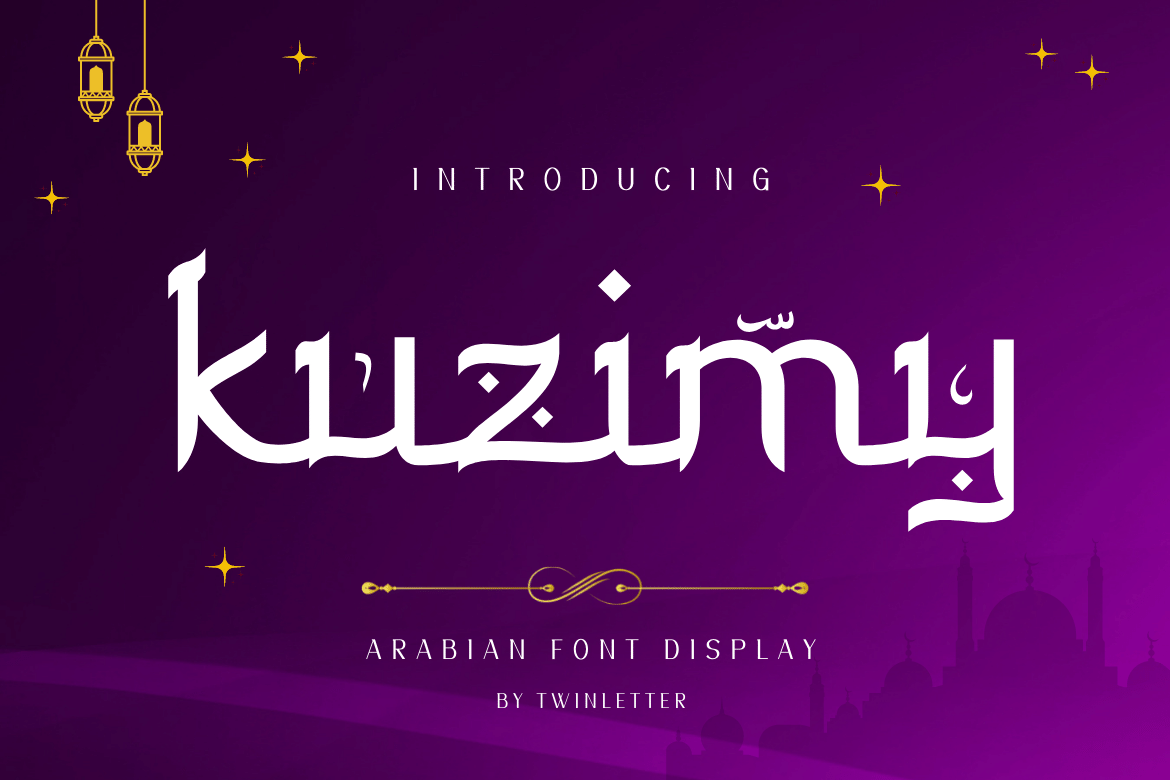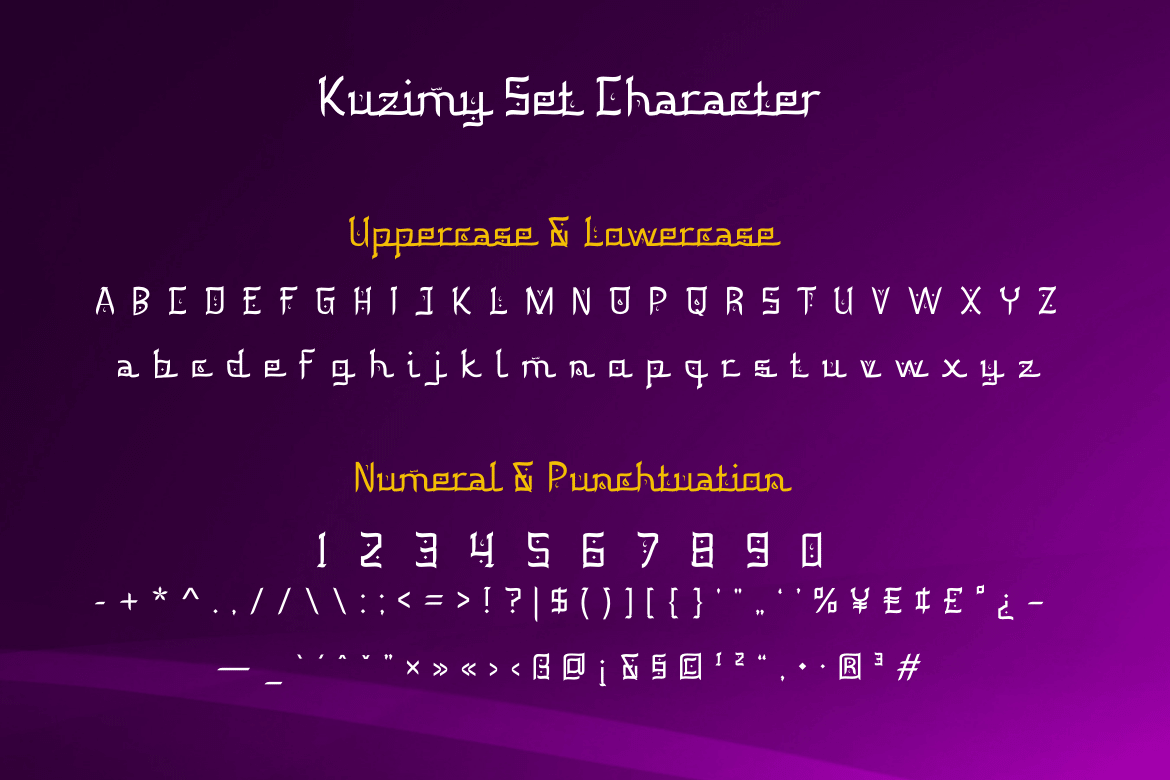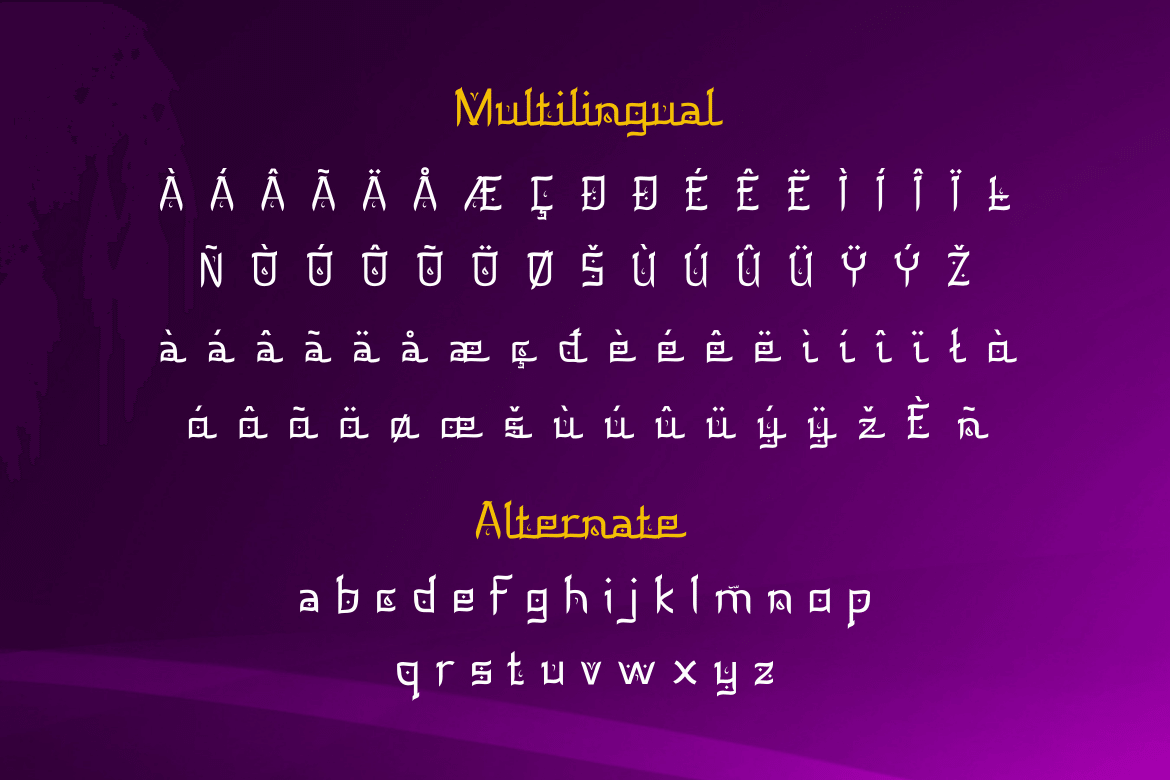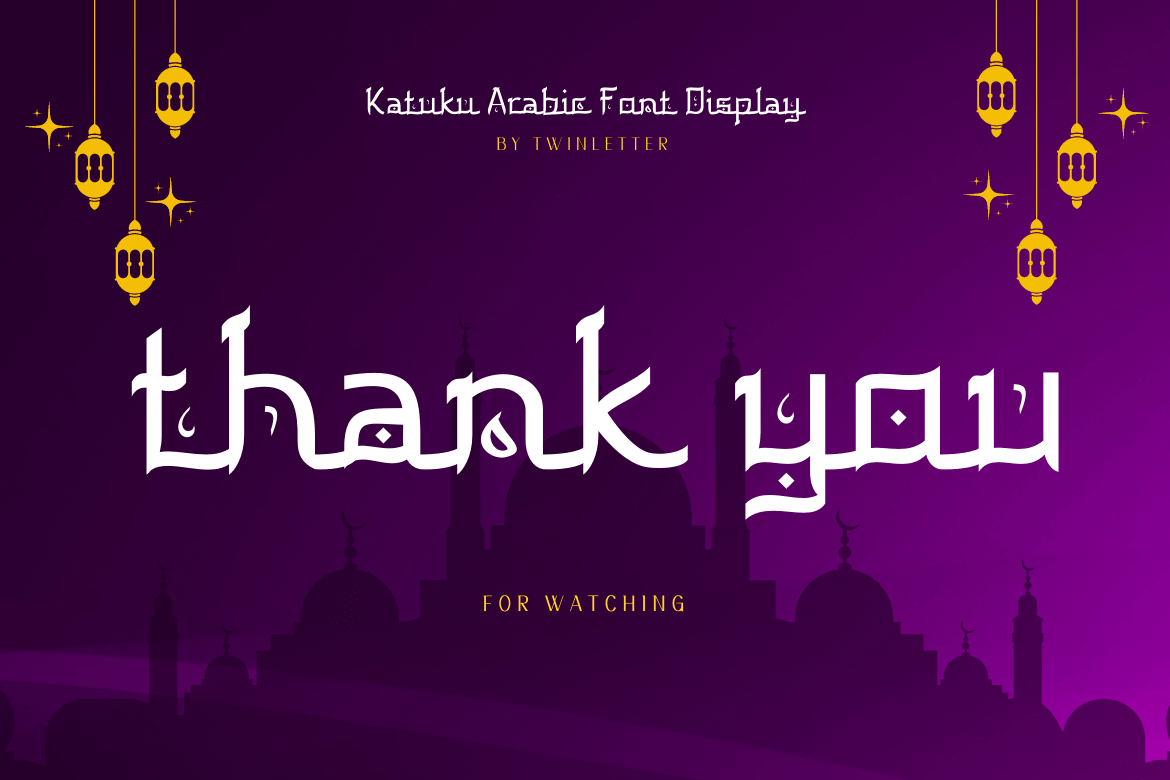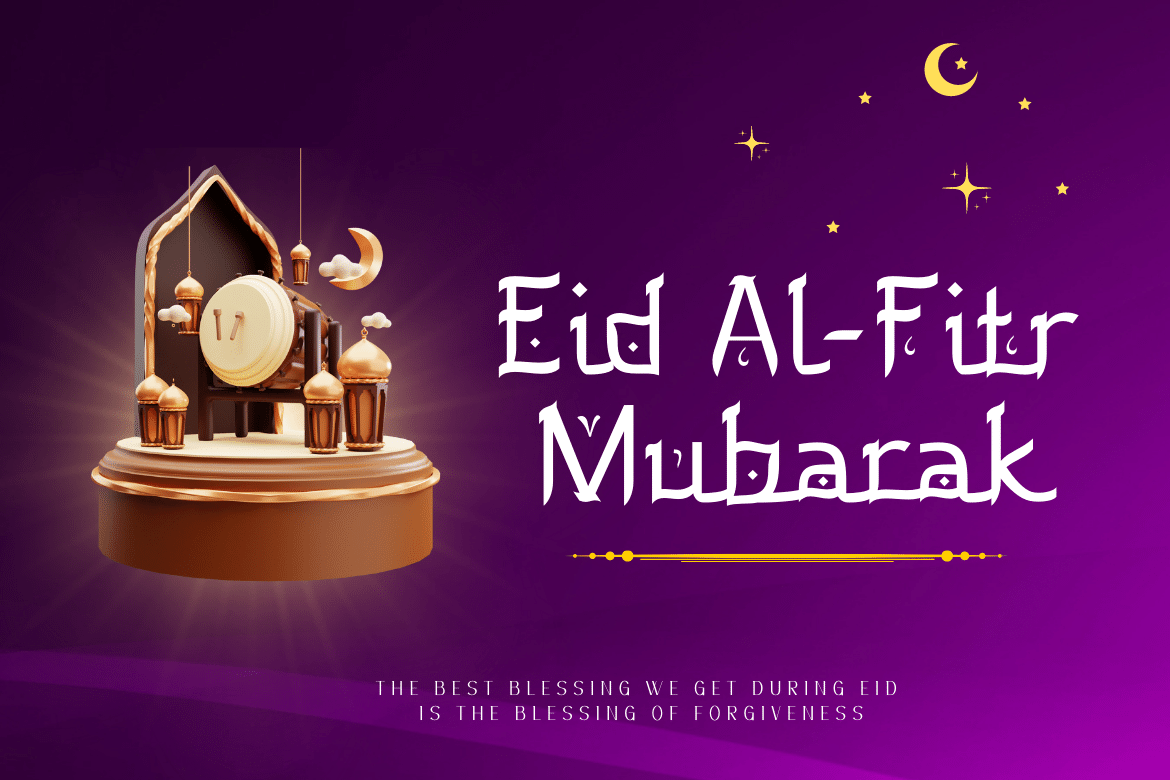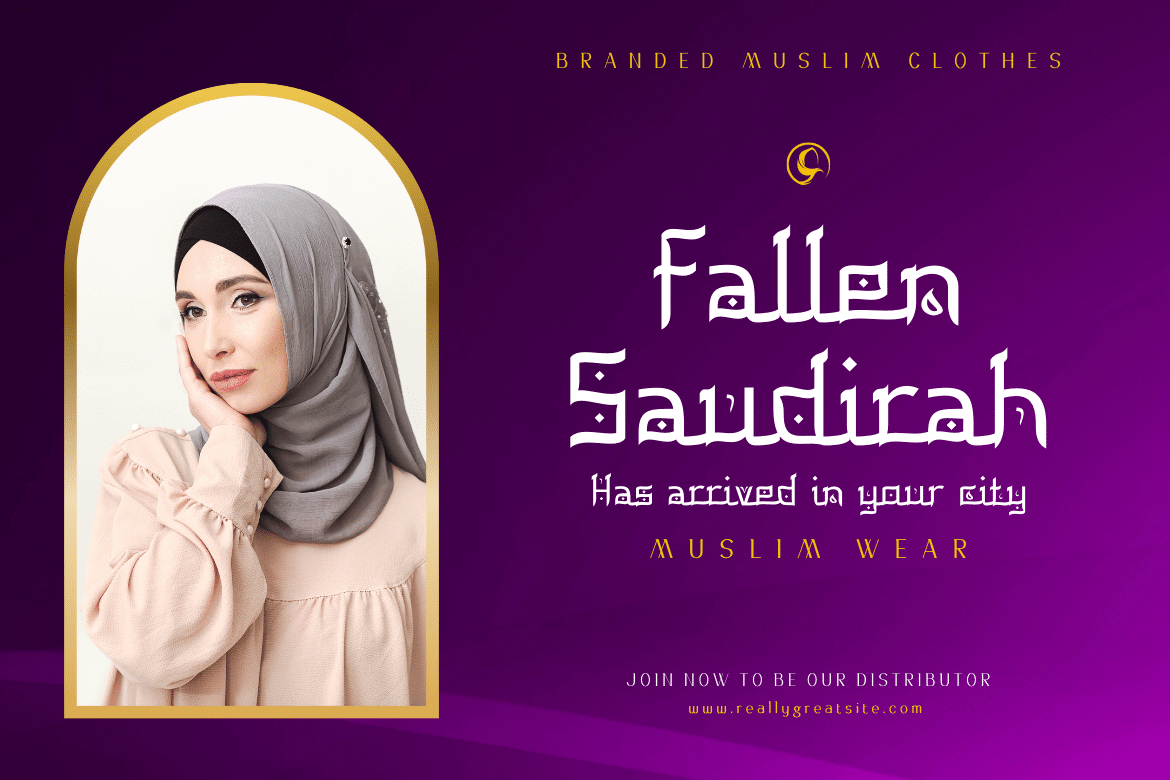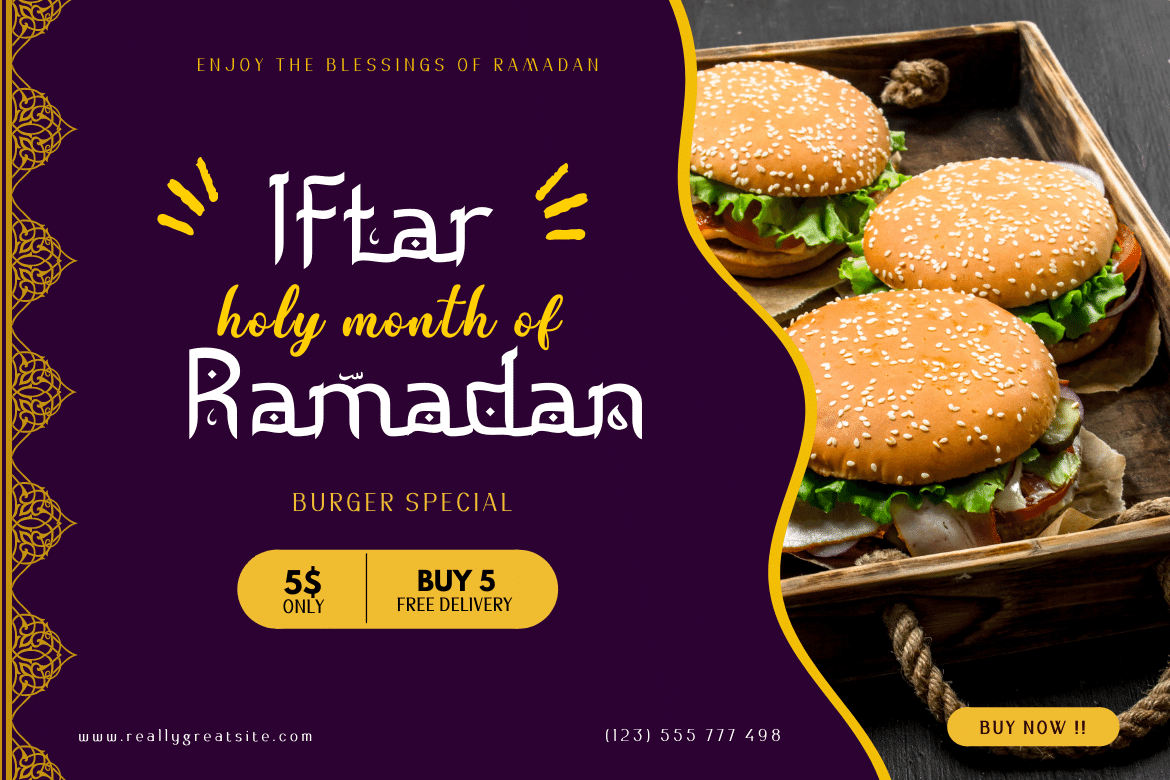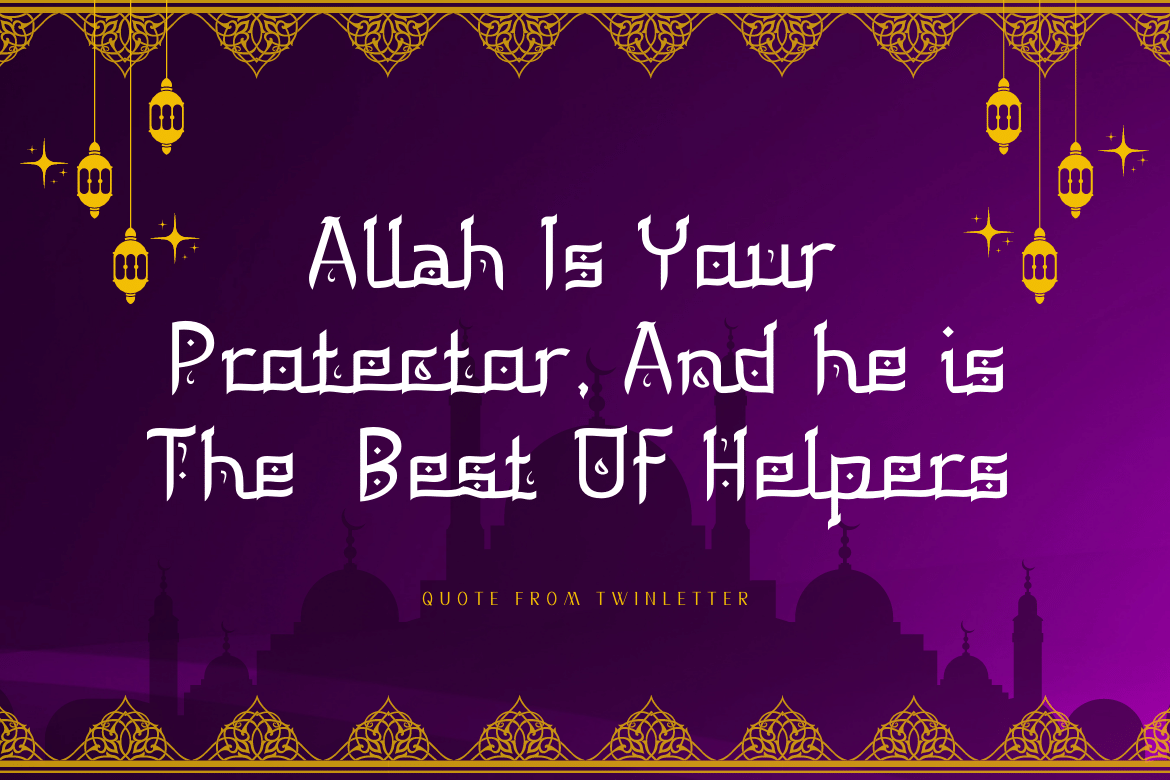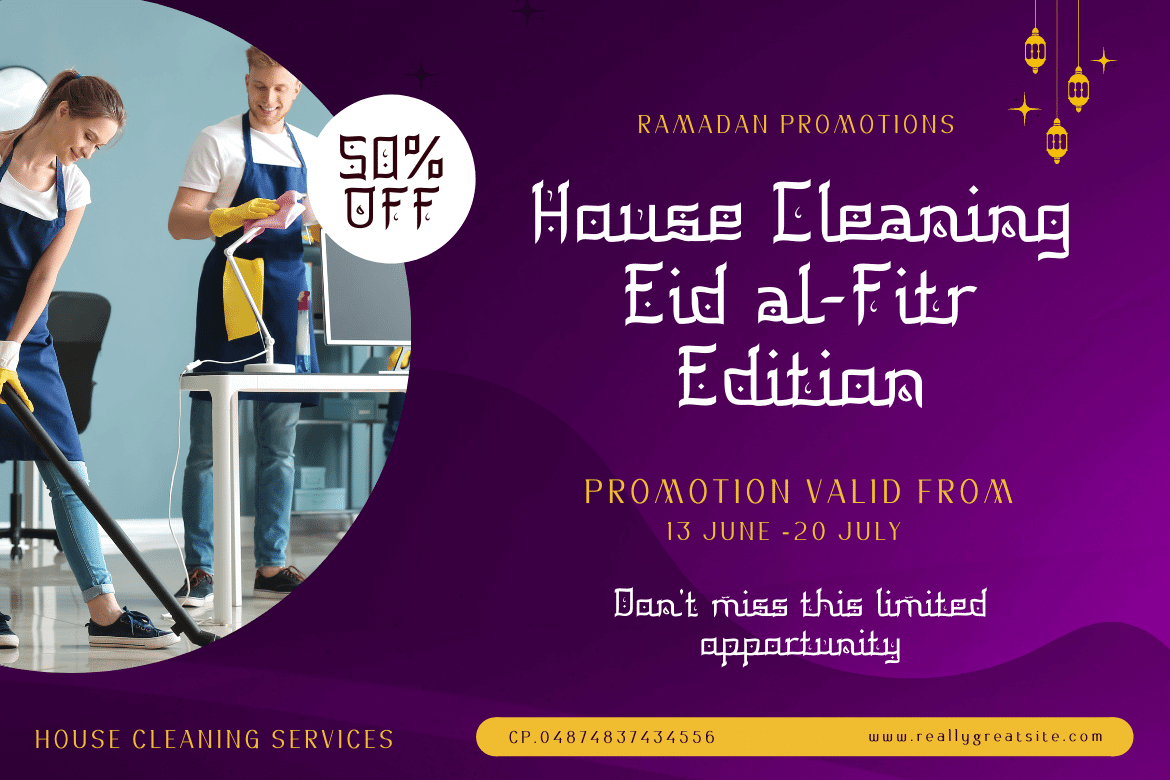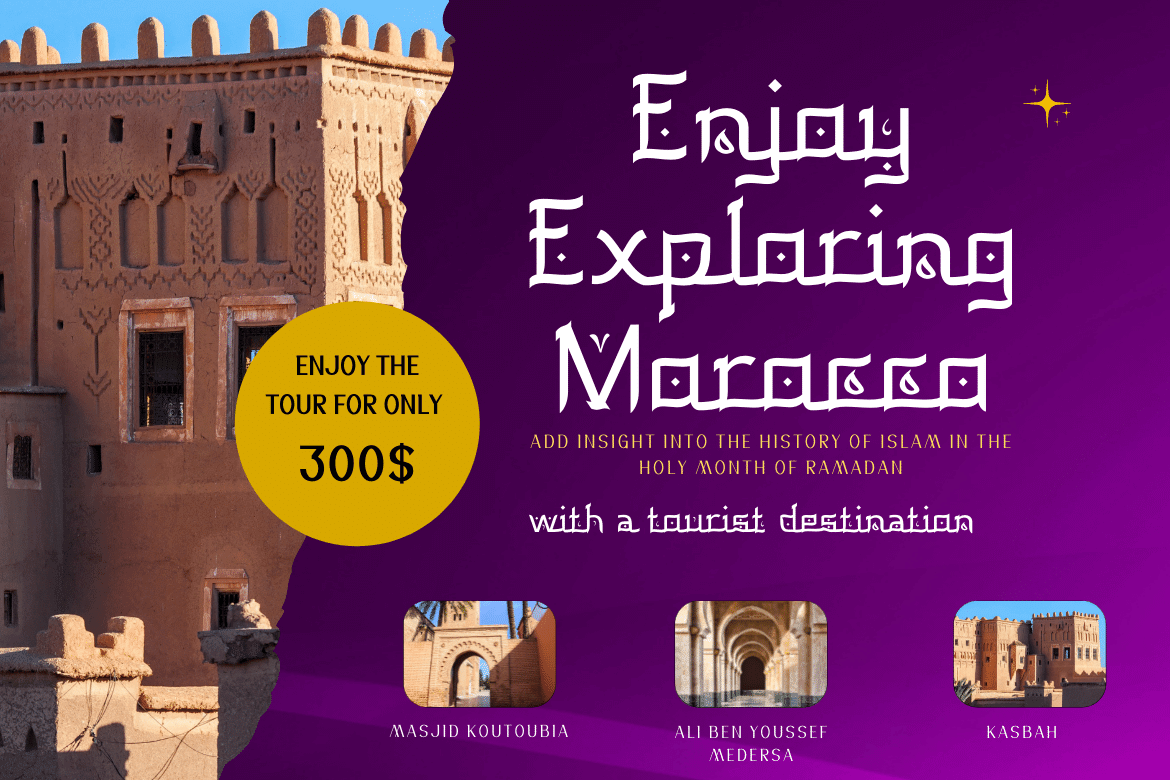
kuzimy
Introducing kuzimy Arabic style font.
With this, Font lets you create designer-quality designs with ease. You will get a variety of styles for your project. They come in upper and lower case and alternate with different shapes. You will be able to easily create professional designs with an Arabic Style theme.